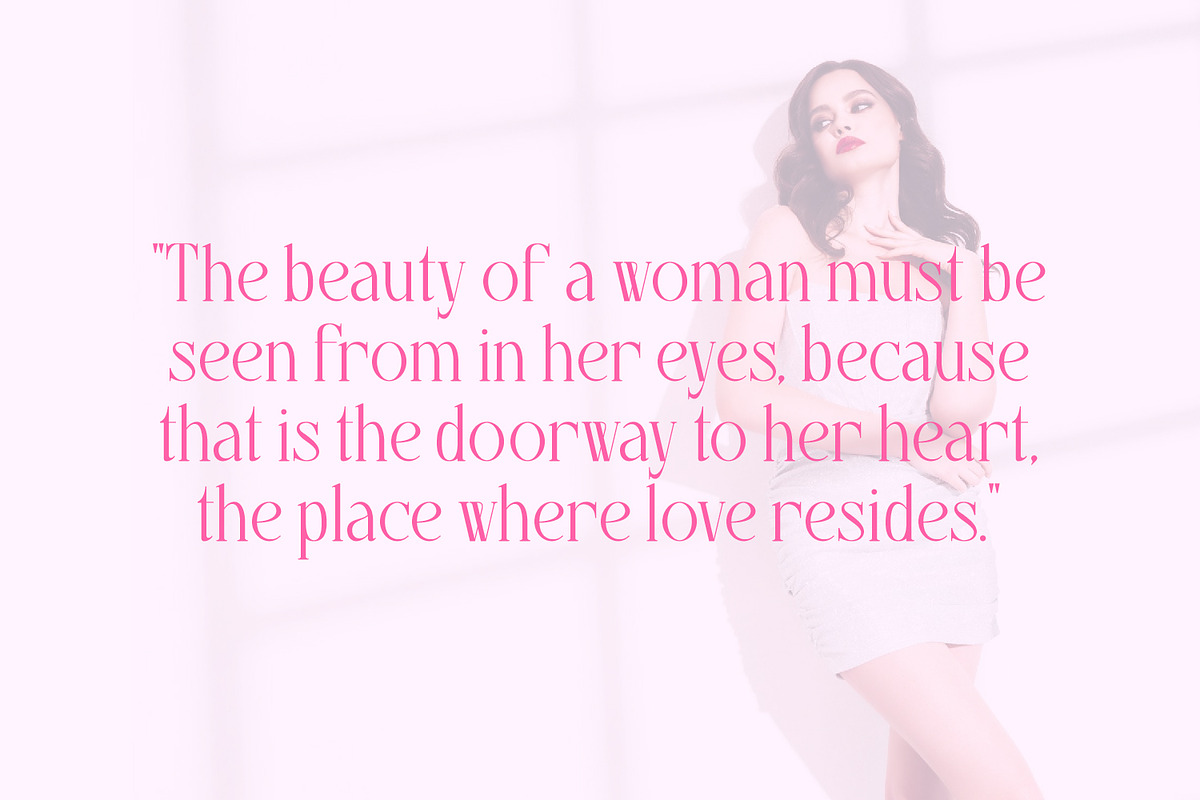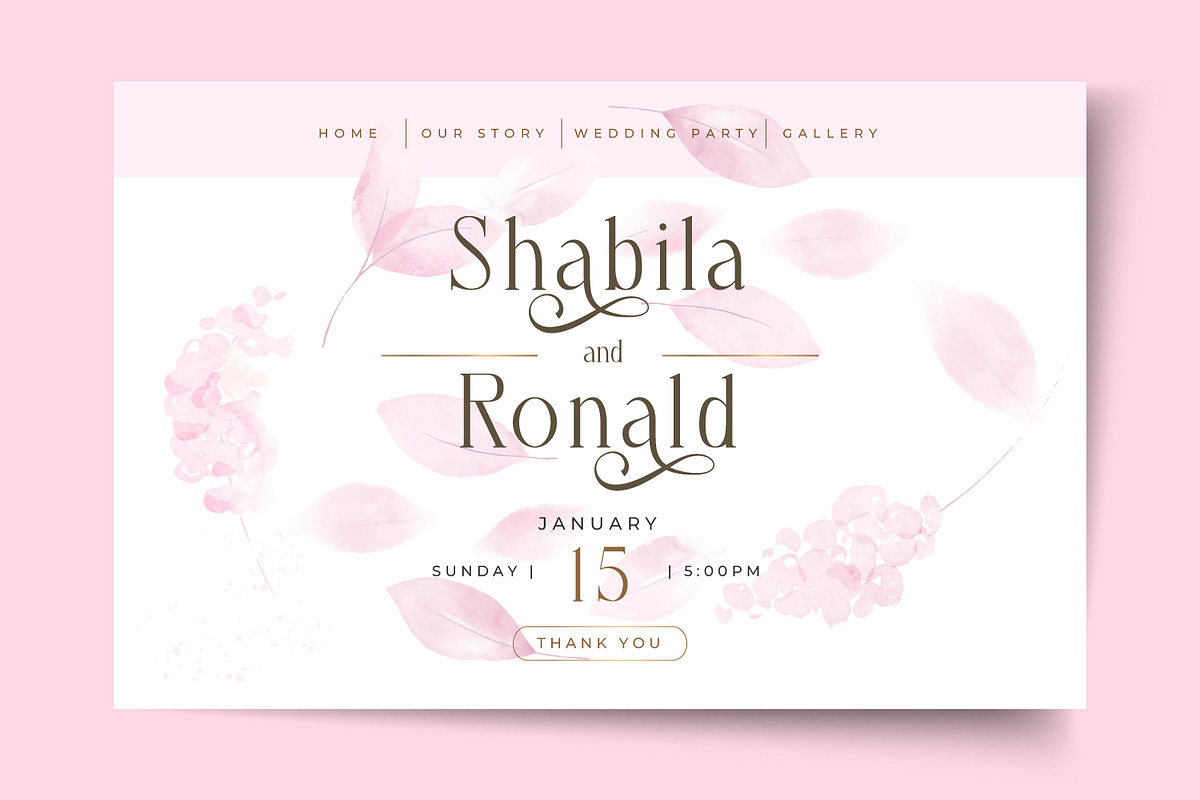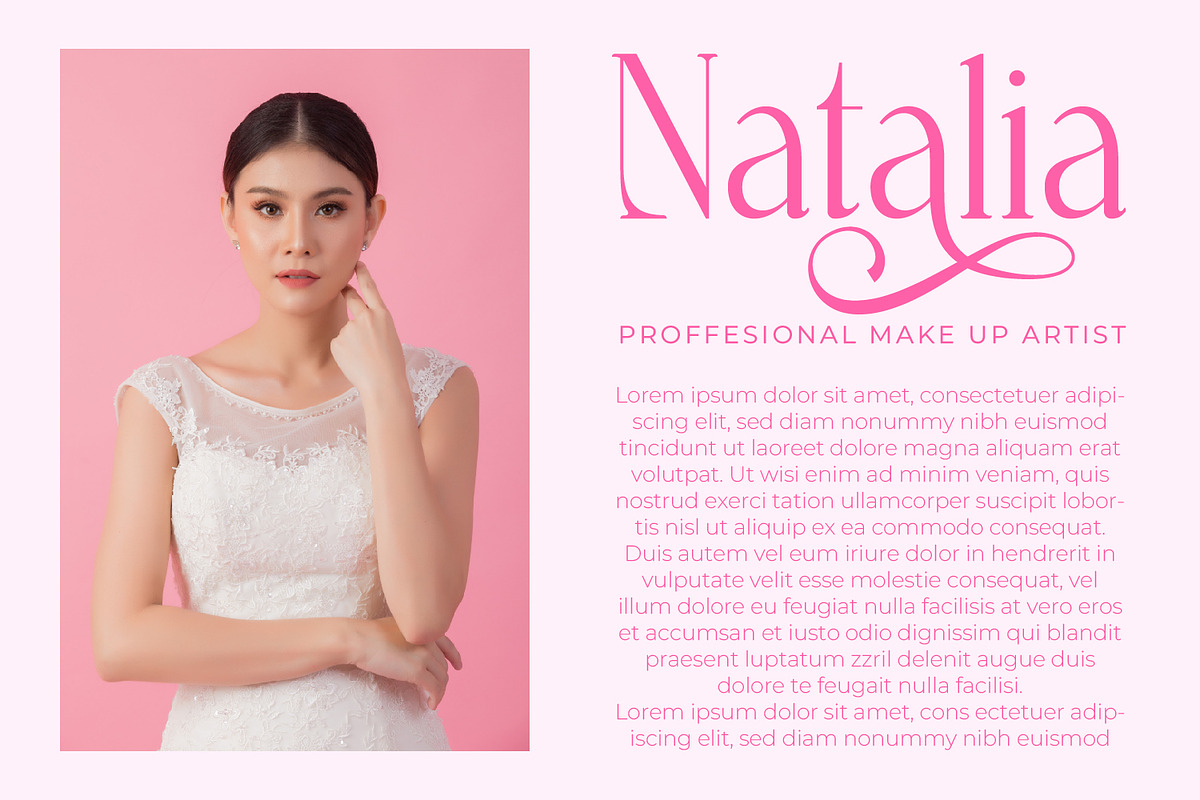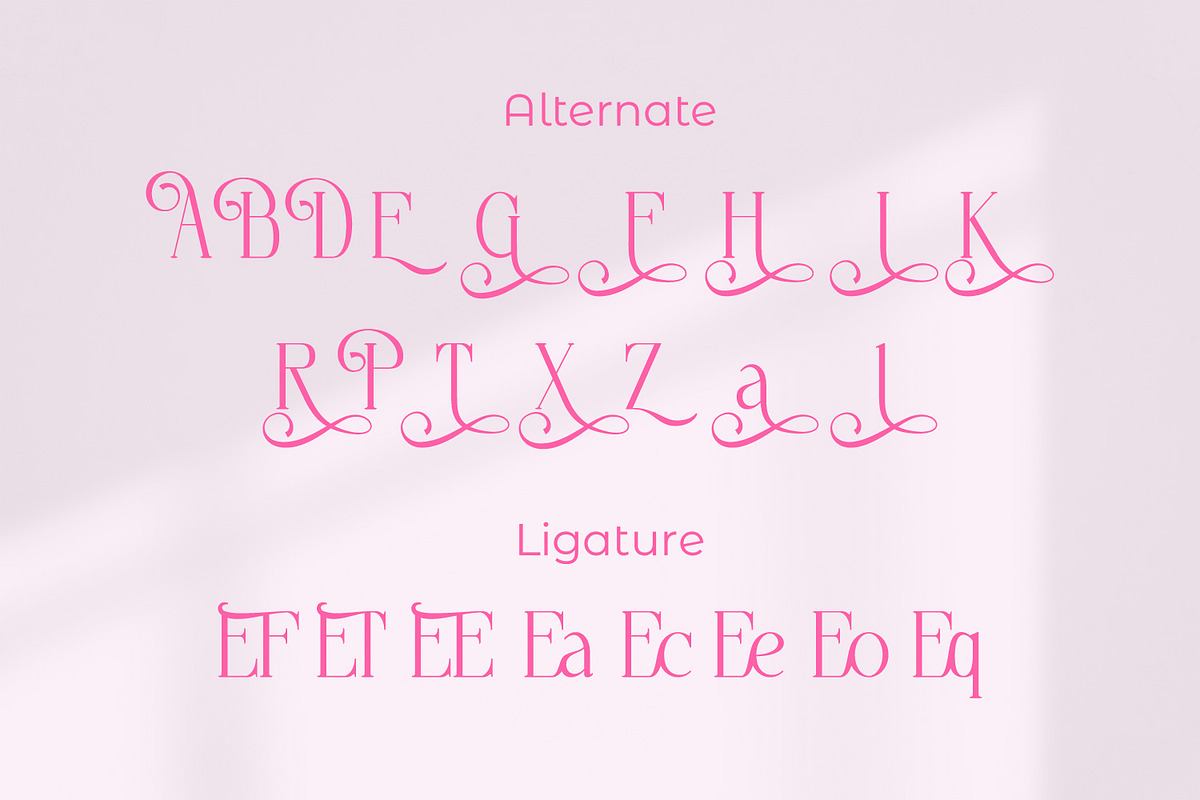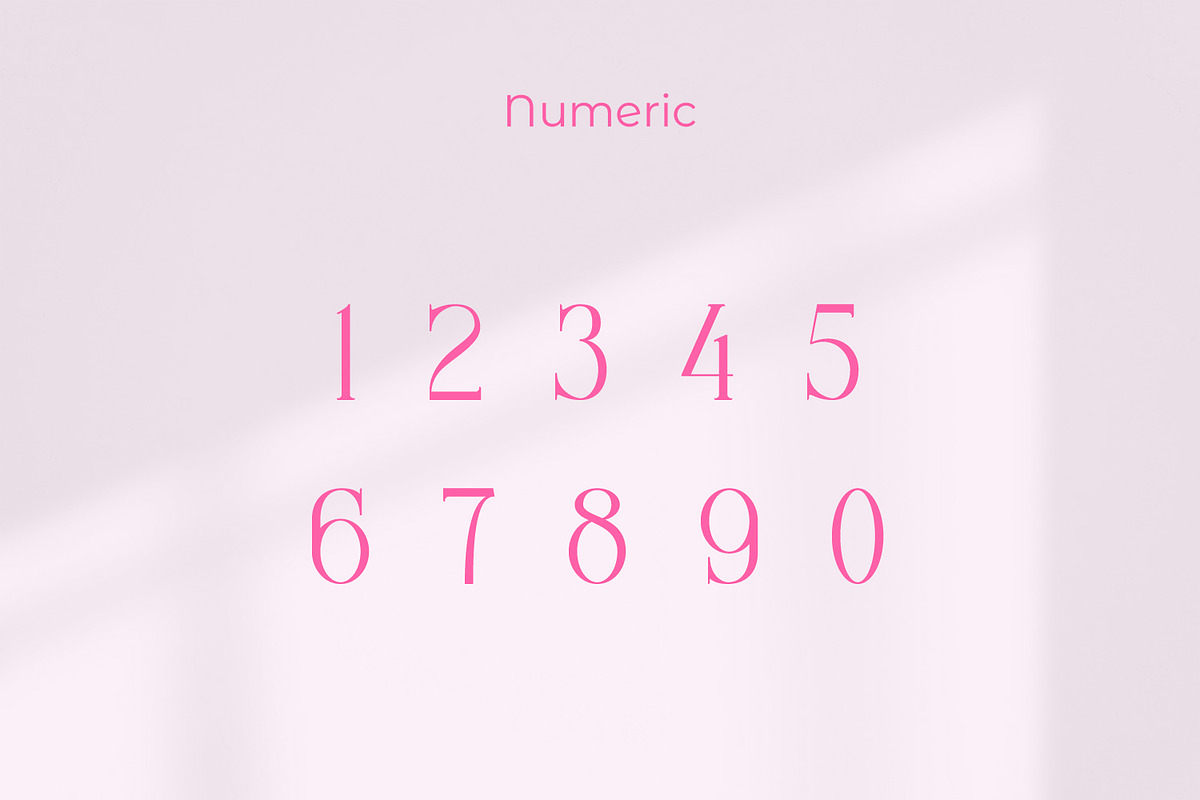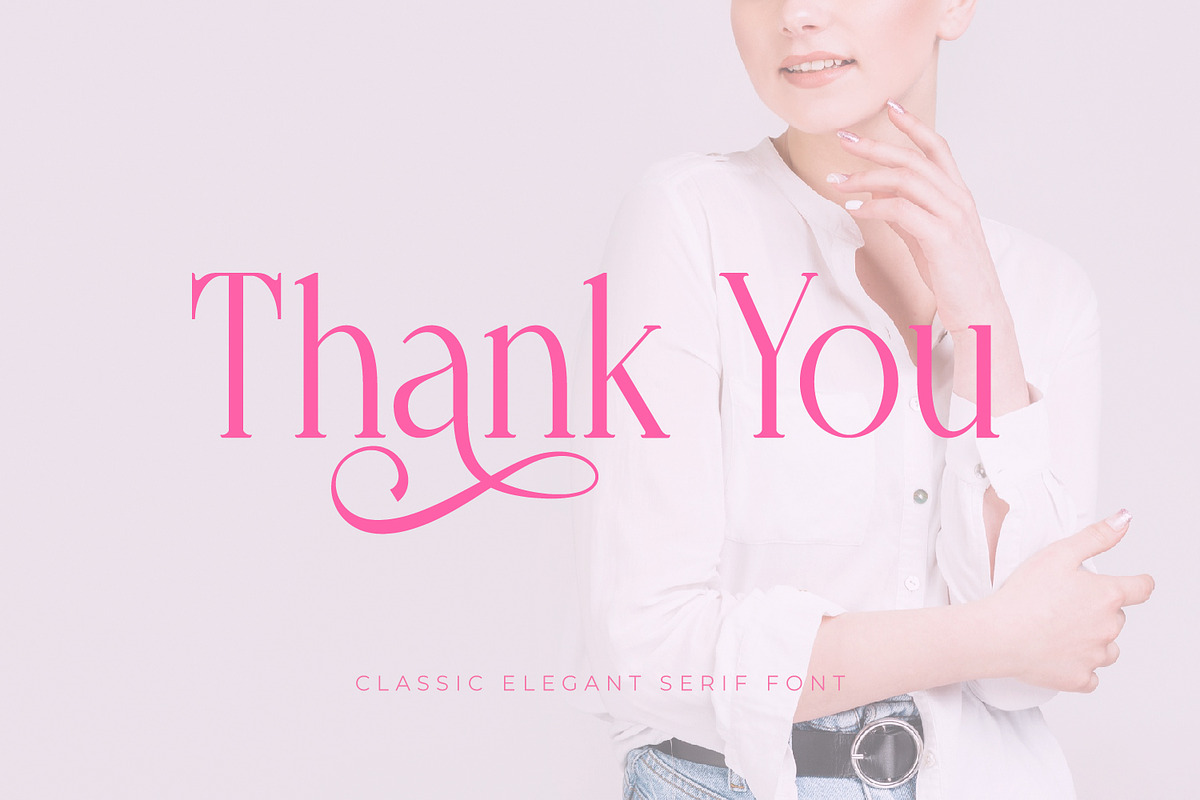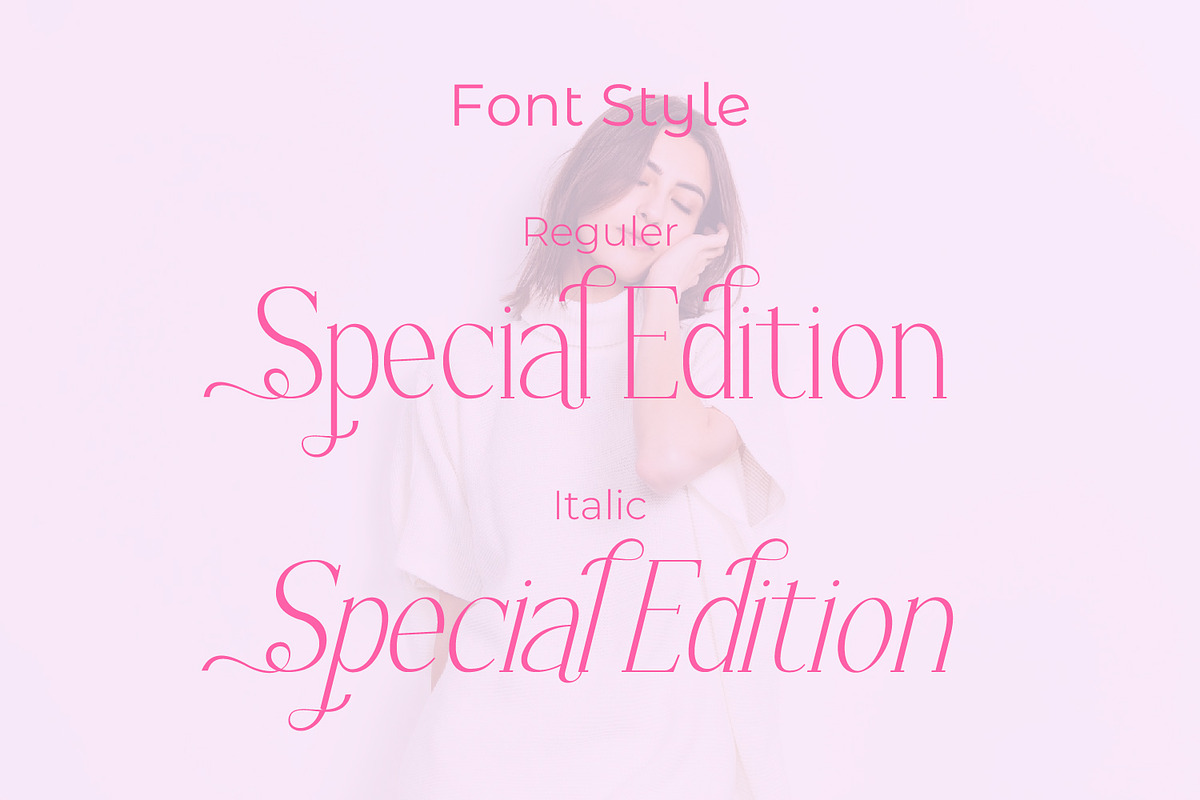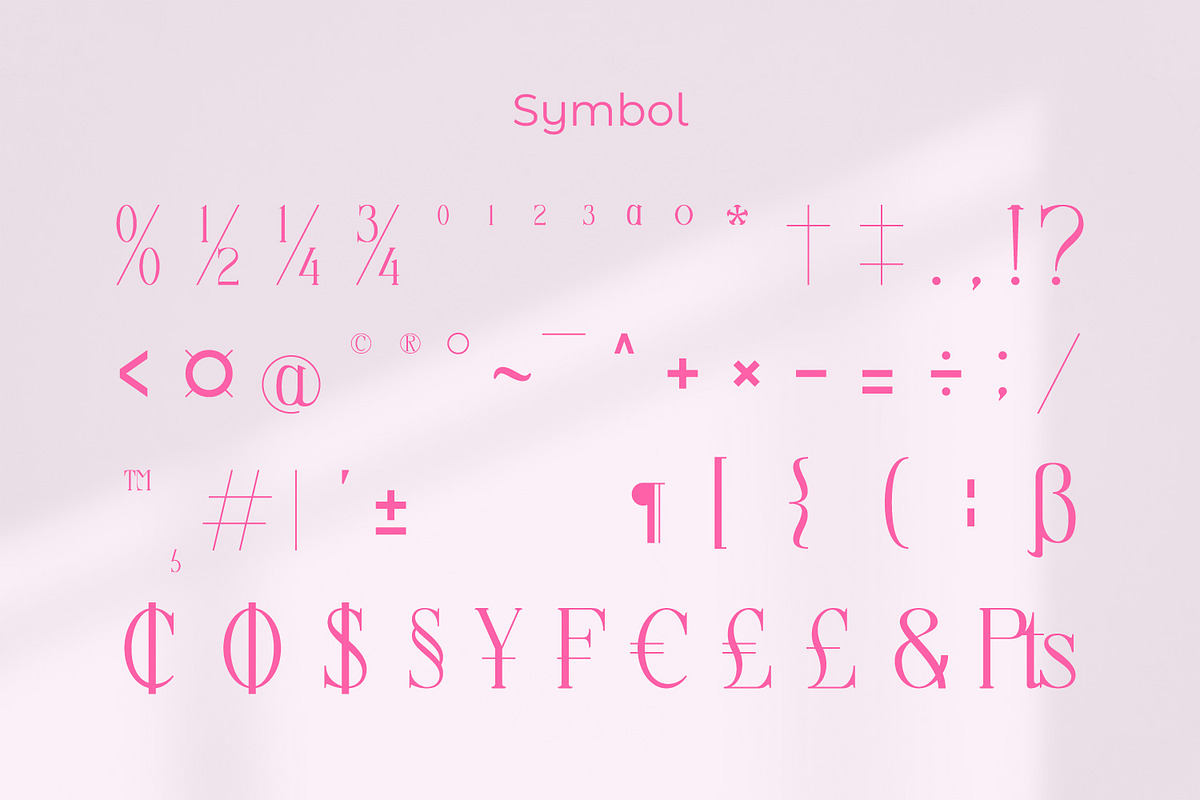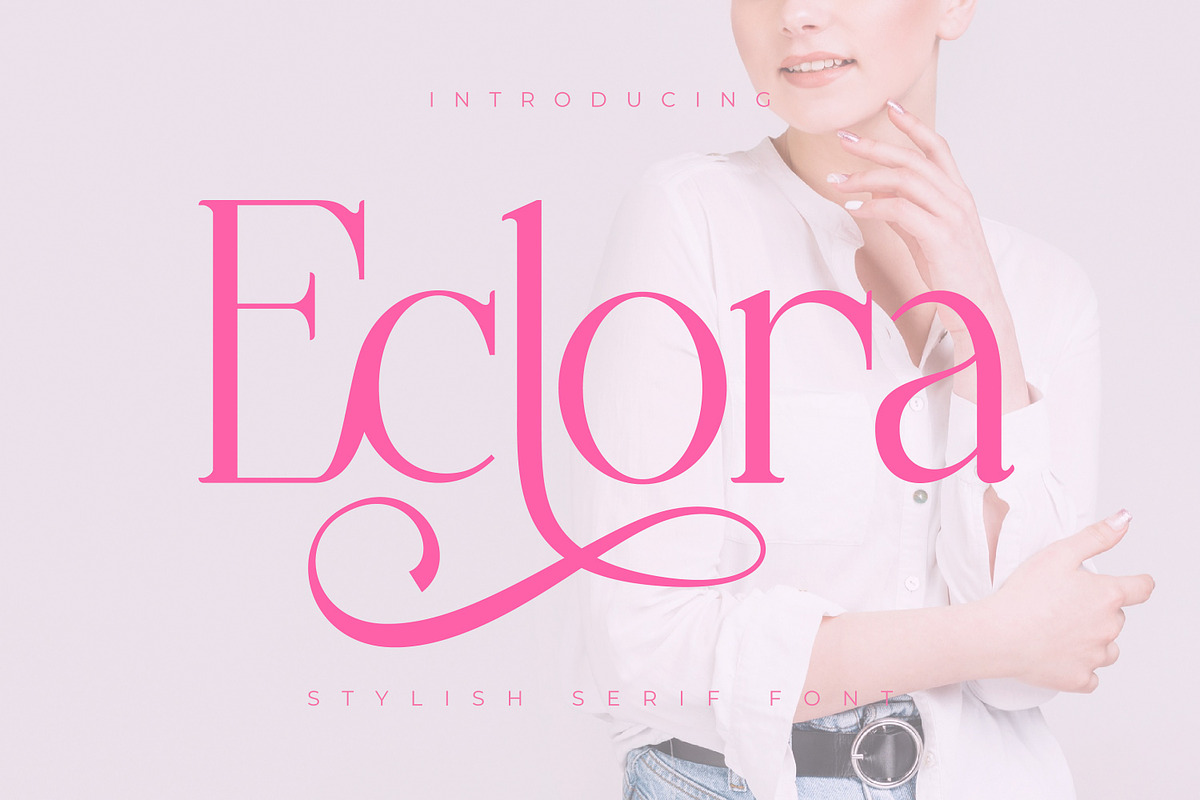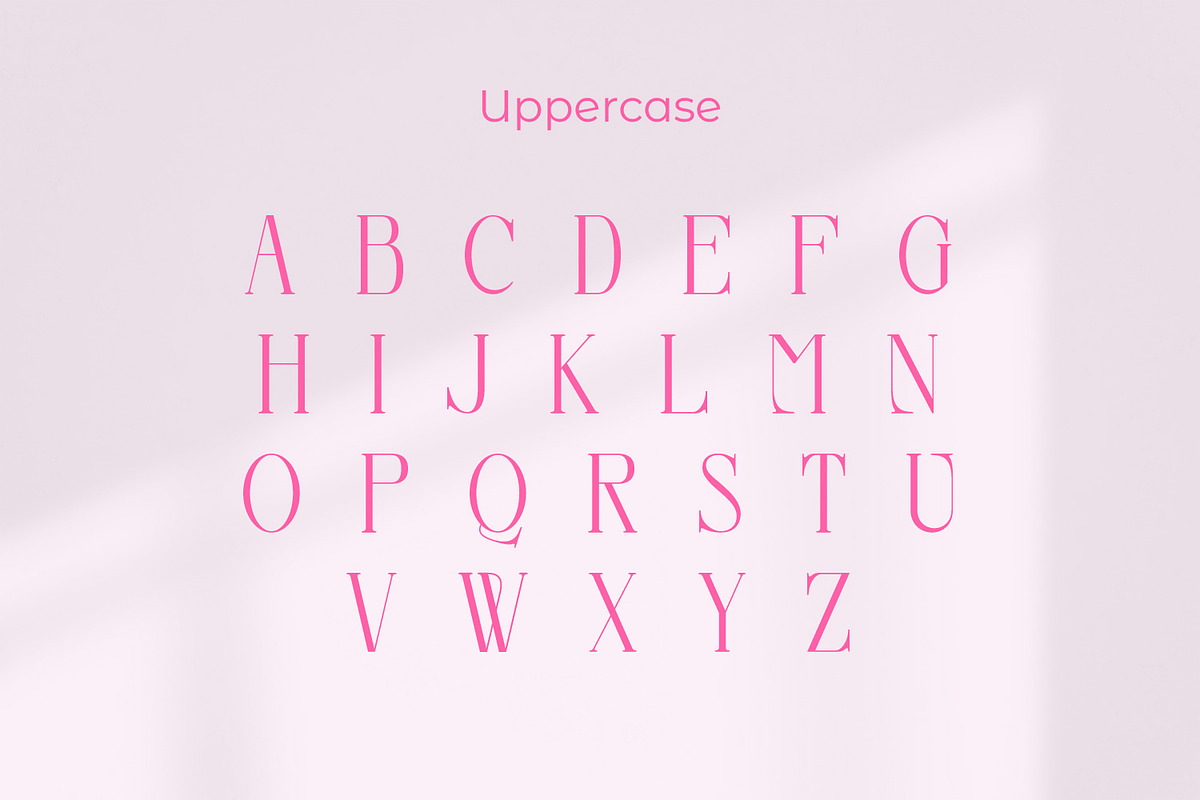
Eclora
Eclora - Stylish Serif Font, from Rishsketch Studios, is a premium Serif Font, perfect for any project that requires a distinctive, and premium feel.
Ligature, Alternate & Multilingu